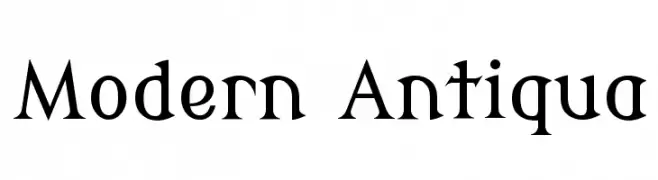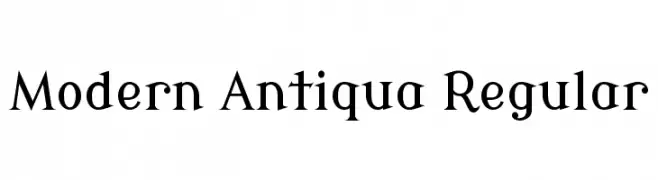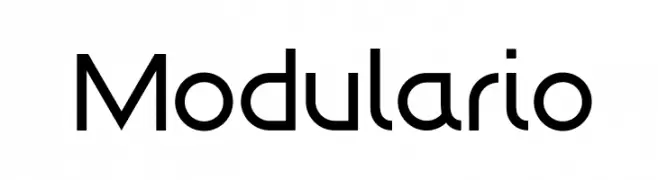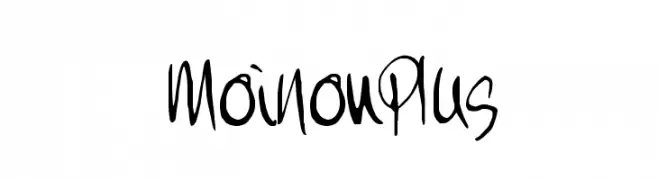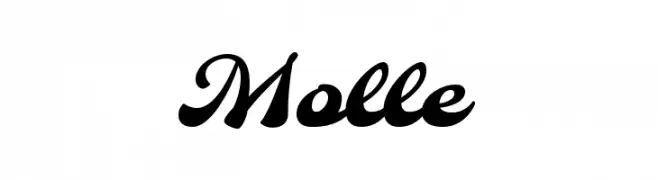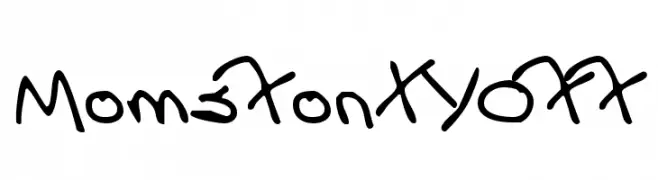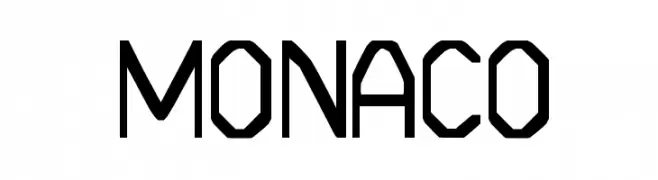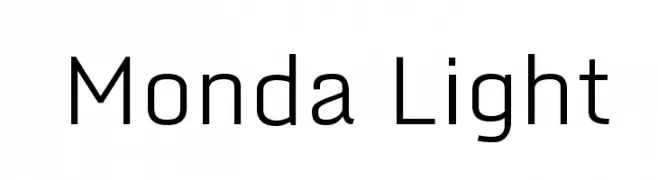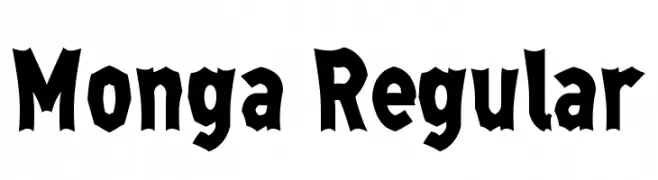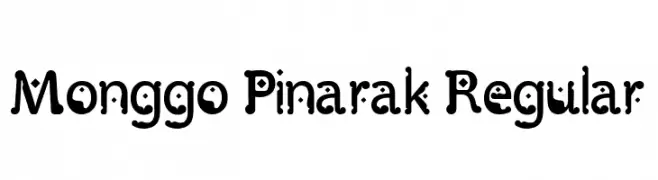
A modern serif font with elegant, angular serifs and balanced proportions.
A whimsical, decorative font with looping, continuous lines and a playful yet elegant style.
A whimsical and elegant font with looped and curled elements.
A modern, geometric font with a bohemian twist, featuring angular lines and a cohesive design.
A bold, modern Fraktur-inspired font with a hand-drawn, artistic style.
A modern, bold geometric sans-serif font with clean lines and strong presence.
A futuristic, modular font with geometric shapes and a techno vibe.
A modern, geometric sans-serif font with clean lines and uniform stroke width.
A bold, geometric font with a futuristic and impactful design.
A bold, geometric font with circular motifs and unique cutouts.
A lively, handwritten font with dynamic strokes and expressive character.
A bold, cursive script font with smooth, connected strokes and elegant slant.
A playful, casual handwritten font with smooth, flowing lines.
A playful handwritten font with fluid, dynamic strokes and a casual style.
A modern, geometric sans-serif font with clear, balanced characters.
A bold, decorative font with playful, whimsical elements.
A bold, rounded font with a playful geometric style.
A playful, rounded font with bold, geometric strokes and smooth curves.
A bold, expressive handwritten font with fluid, organic strokes.
A bold, expressive handwritten font with fluid, dynamic strokes.
A bold, rounded font with a futuristic and playful design.
A bold, monospaced font with a jagged, distressed uppercase style and geometric lowercase design.
A decorative cursive font with elegant loops and playful swirls.
A modern, geometric font with parallel line detailing for a bold, futuristic look.
A bold, geometric font with parallel line detailing for a modern, decorative look.